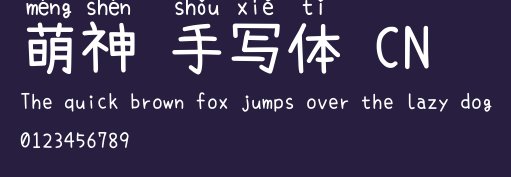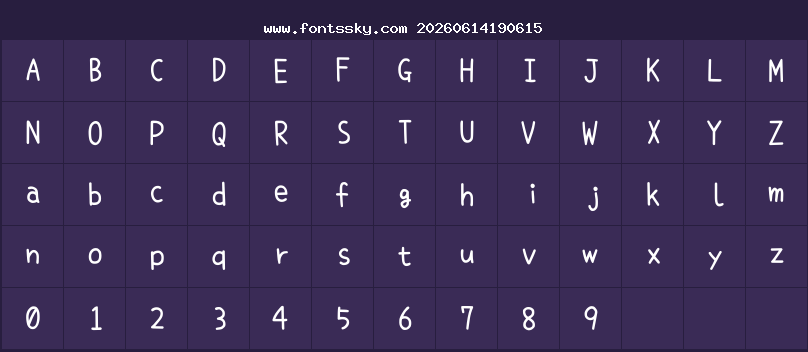
• Font Name: 萌神 手写体 CN
• Full Font Name: 萌神 手写体 CN
• Designer: Nozomi Seto 瀬戸のぞみ [mengshen project] Yuya Maruyama 丸山裕也
About 萌神 手写体 CN.ttf
萌神 手写体 CN.ttf is a modern, elegant sans-serif font designed for ultimate readability and visual harmony. Perfect for branding, headlines, web design, and print materials.